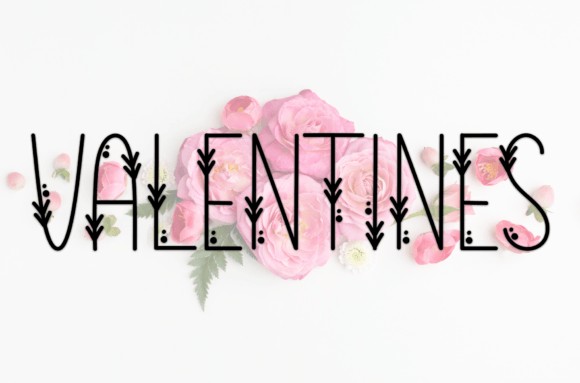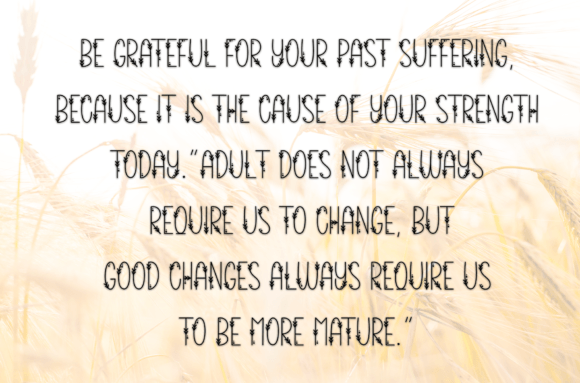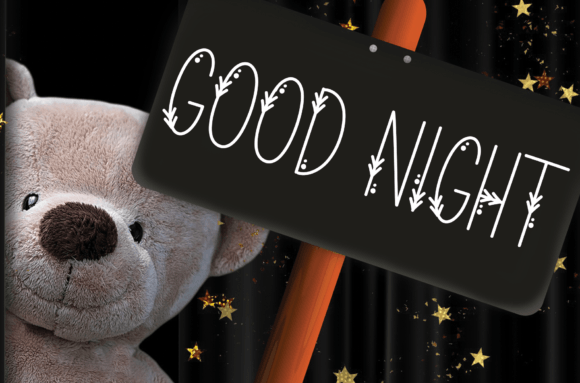
Introduction to Floris Font
Floris is a sweet and friendly handwritten decorative font.
Cute and creative, this font is ideal for writing wedding invitations, cards, or any other design that might need a fun touch .